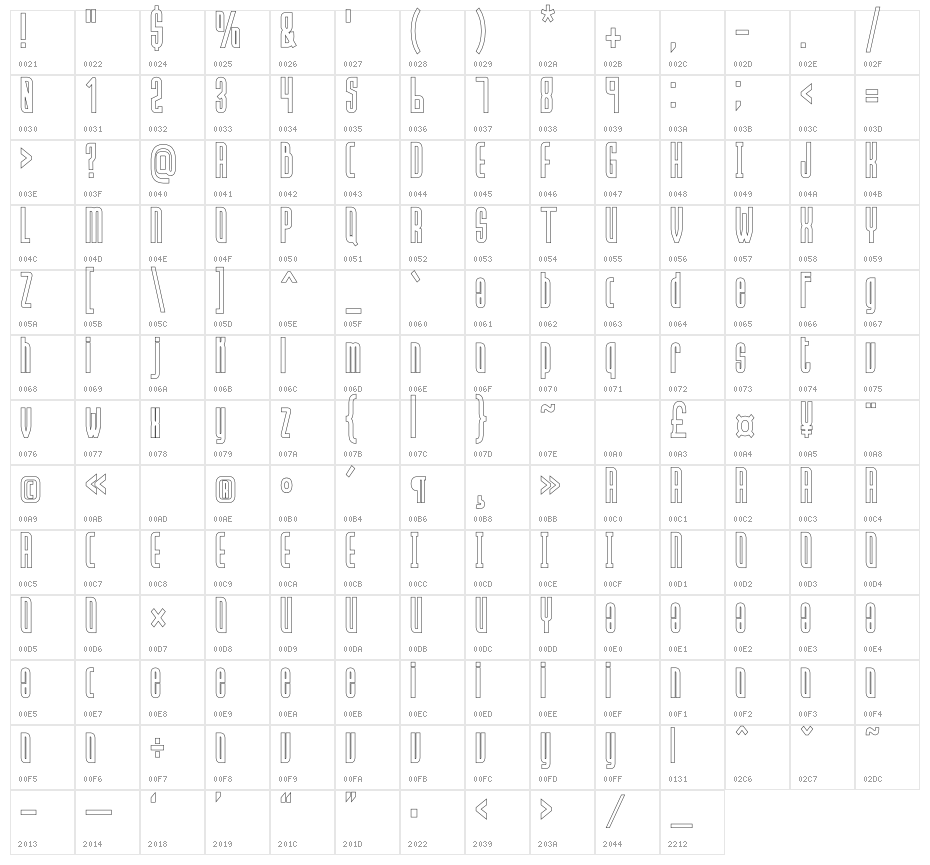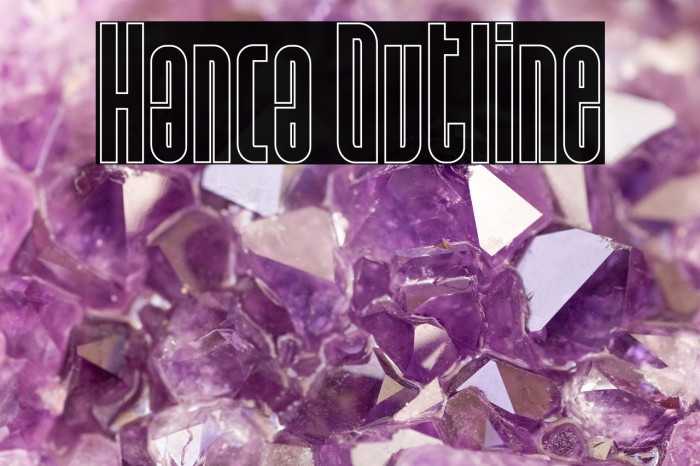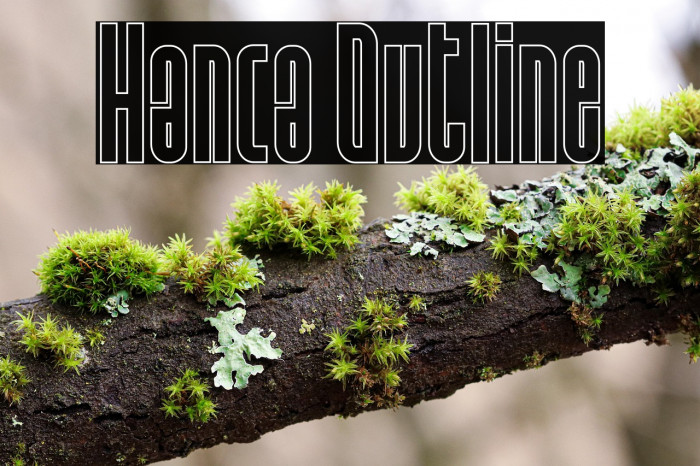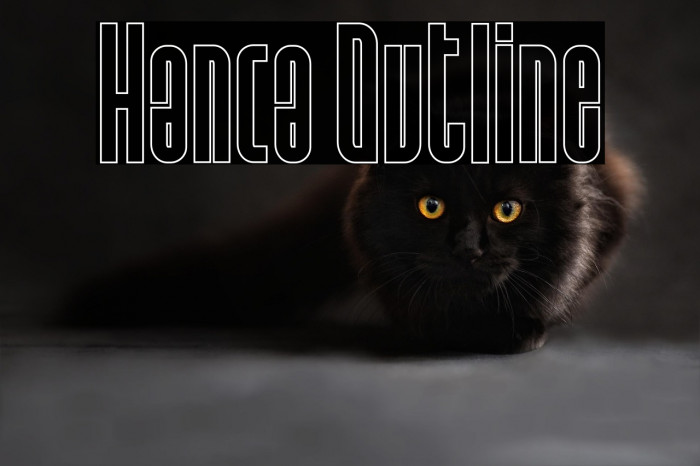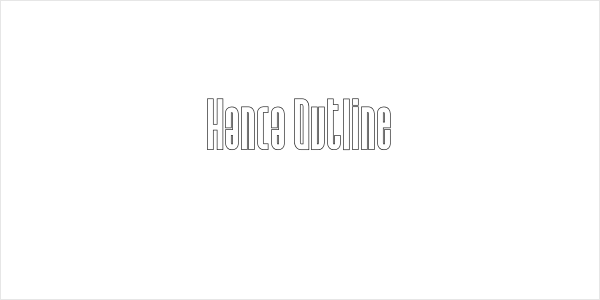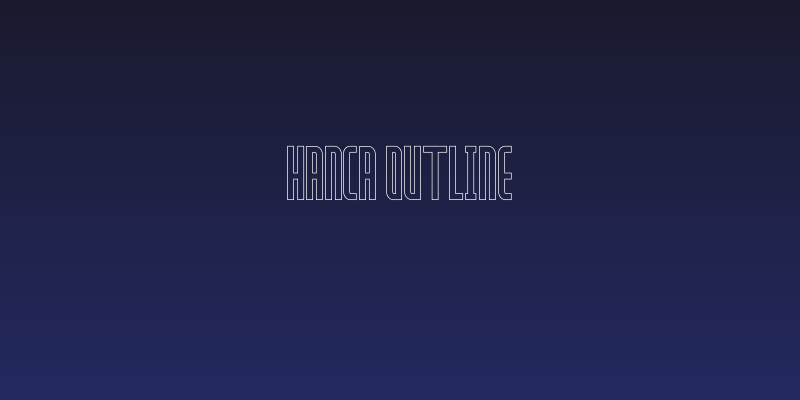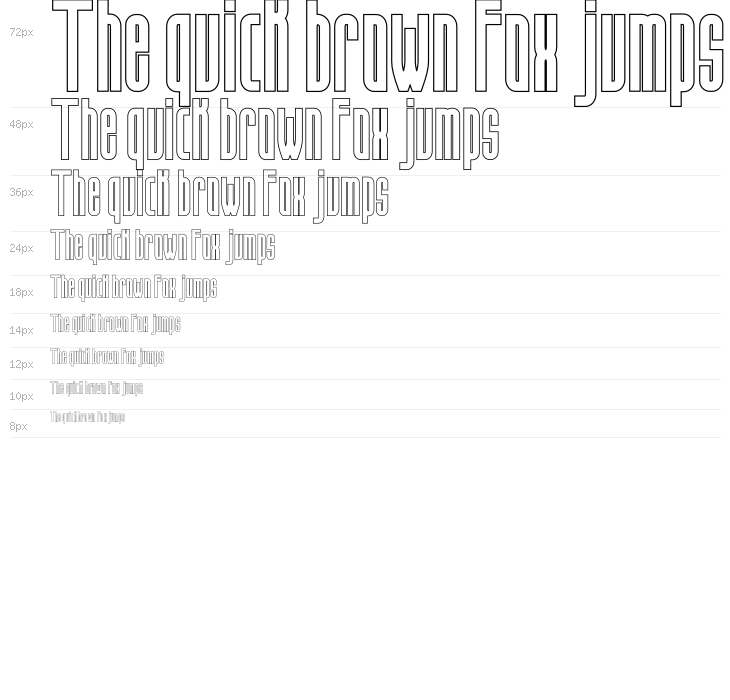
Hanca Outline Font
Hanca Outline Description
This font features a unique outline style that gives it a modern and artistic appearance. The characters are tall and narrow, with a consistent stroke width that creates a cohesive look across all letters and numbers. The uppercase and lowercase letters maintain a uniform height, contributing to a structured and geometric feel. The numerals and special characters are designed to match the overall aesthetic, ensuring a seamless integration in any design project. The font's outline nature makes it ideal for creating eye-catching headlines and titles, where the focus is on the shape and form of the letters rather than filled-in text.